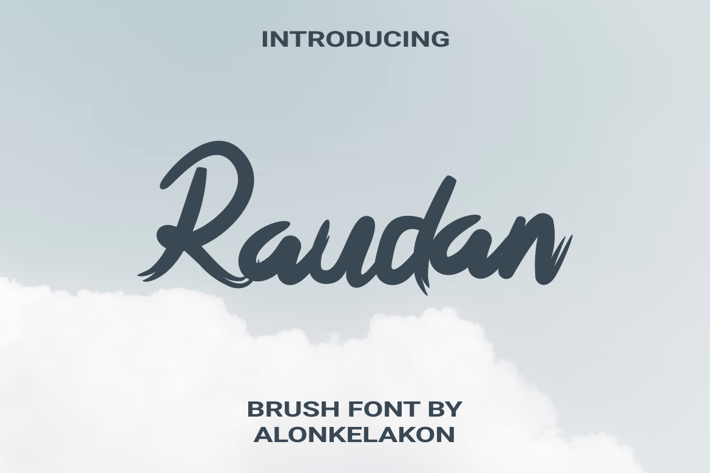
Raudan Brush Font
alonkelakon
Raudan - Hand-Brushed Script Font
Raudan is an elegant and authentic hand-brushed script font that brings a personal, handcrafted feel to your designs. With its natural flow and expressive strokes, this font captures the charm of real brush lettering. Raudan is perfect for projects that need a touch of artistic sophistication and warmth, such as wedding invitations, greeting cards, branding, social media graphics, and personalized products.
The fluid, casual style of Raudan makes it highly versatile for both formal and informal designs, adding a unique, human element to any project.
Raudan is an elegant and authentic hand-brushed script font that brings a personal, handcrafted feel to your designs. With its natural flow and expressive strokes, this font captures the charm of real brush lettering. Raudan is perfect for projects that need a touch of artistic sophistication and warmth, such as wedding invitations, greeting cards, branding, social media graphics, and personalized products.
The fluid, casual style of Raudan makes it highly versatile for both formal and informal designs, adding a unique, human element to any project.